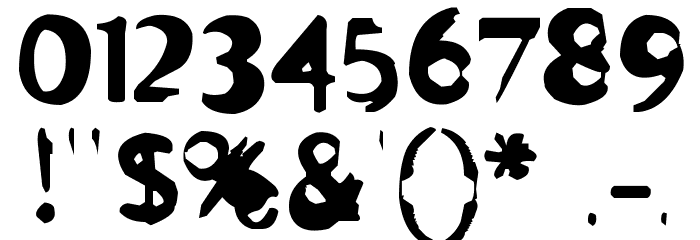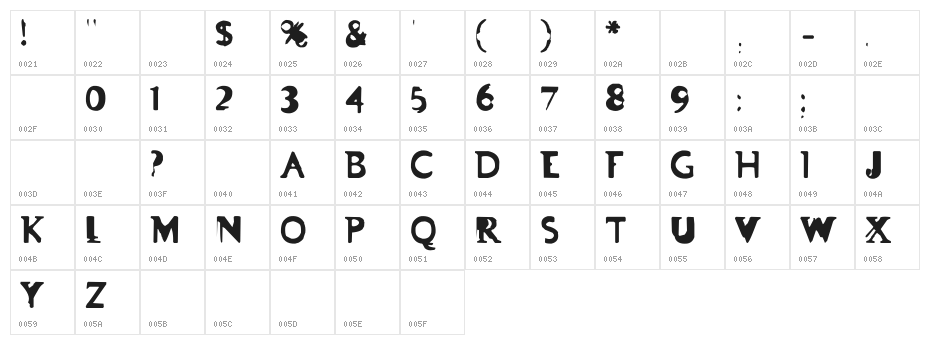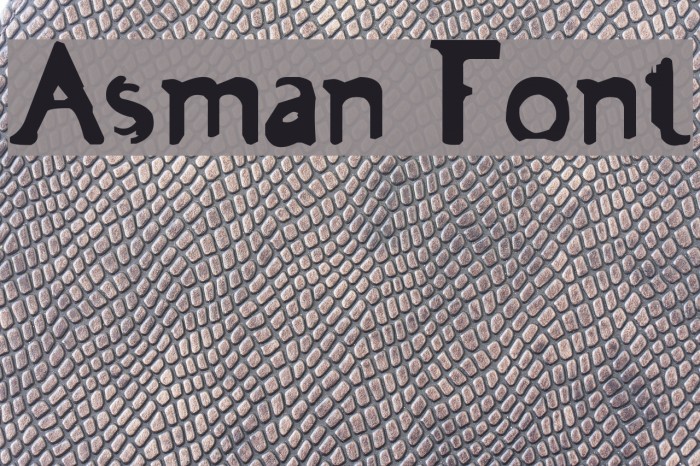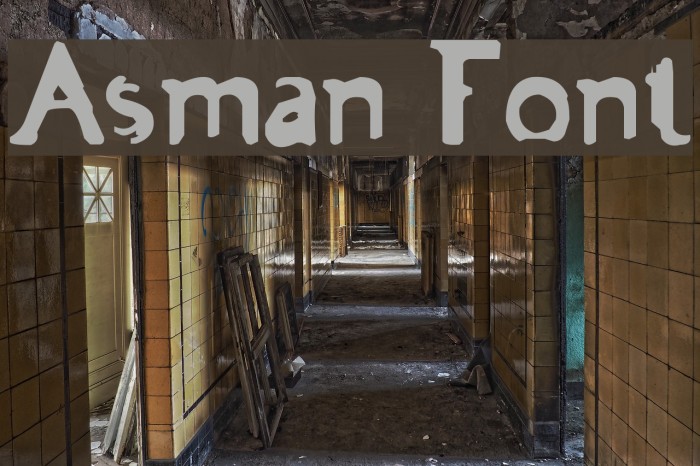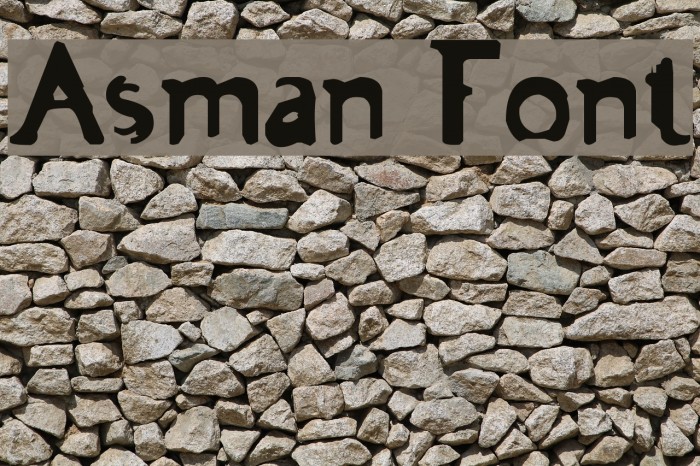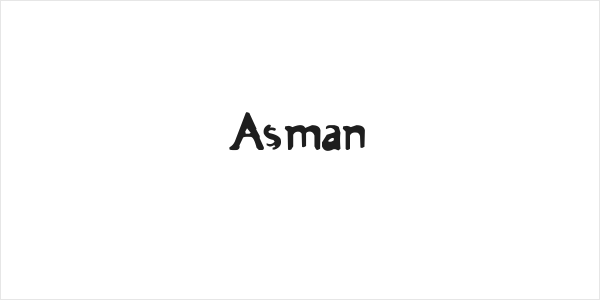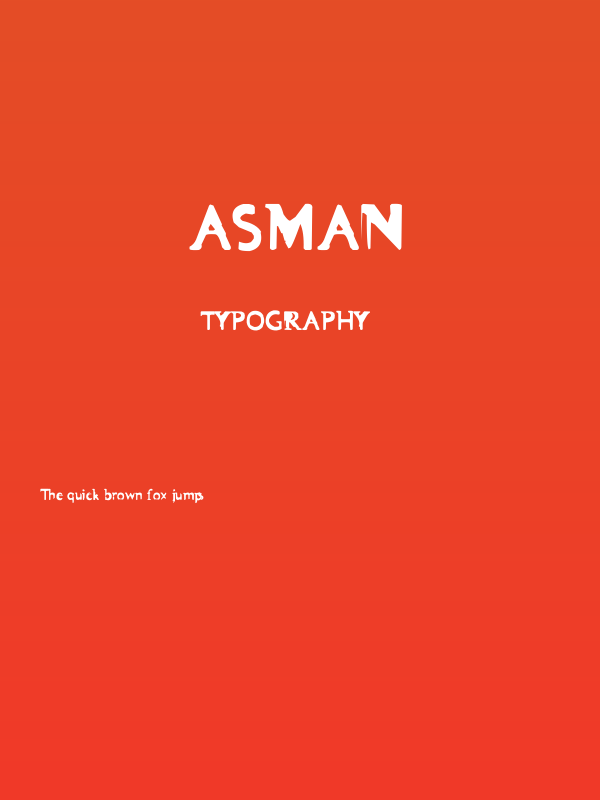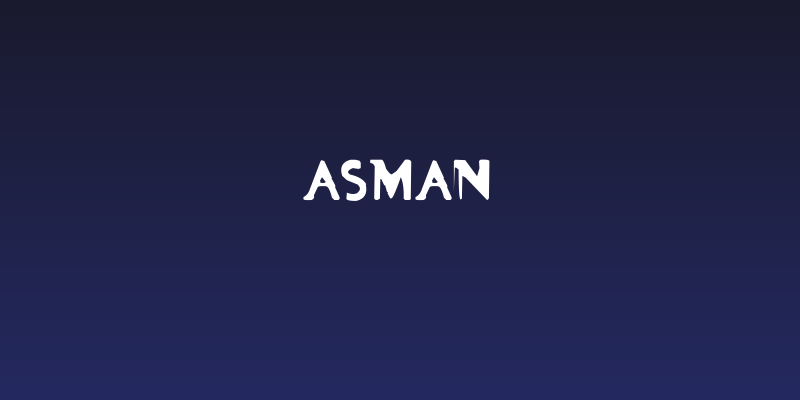
Asman Font
Asman Description
This font features a bold and dramatic style with a unique, distressed appearance. The characters have irregular edges and varying thickness, giving them a hand-crafted, artistic feel. The uppercase letters are particularly striking, with some incorporating unexpected cuts and angles that add to the font's dynamic nature. The lowercase letters maintain this theme, offering a cohesive look across the alphabet. Numbers and special characters follow suit, ensuring consistency throughout. This font's distinct style makes it ideal for projects that require a strong visual impact.